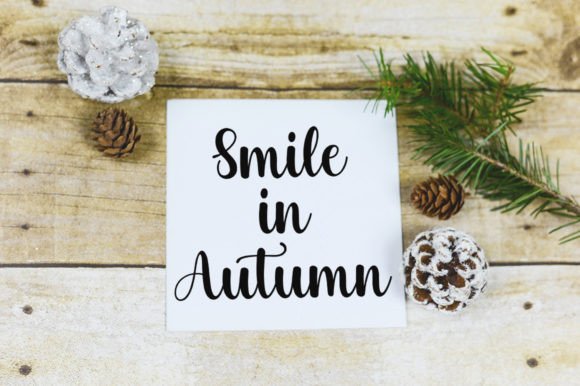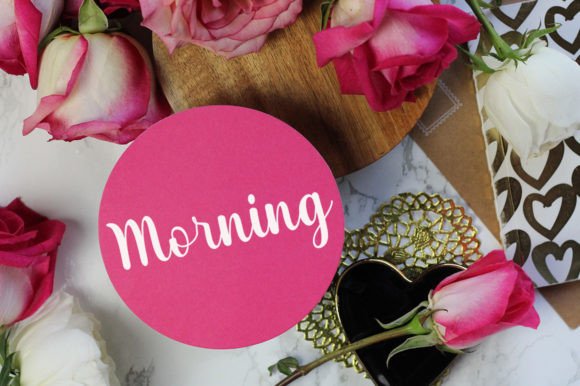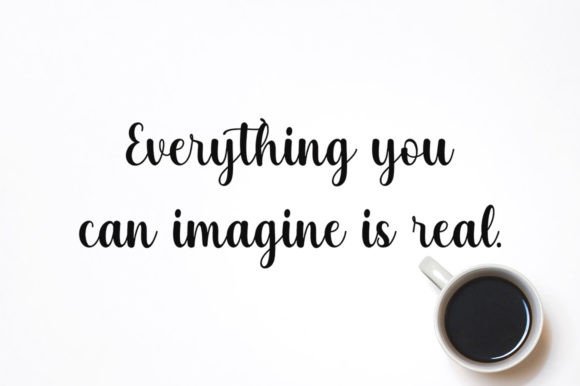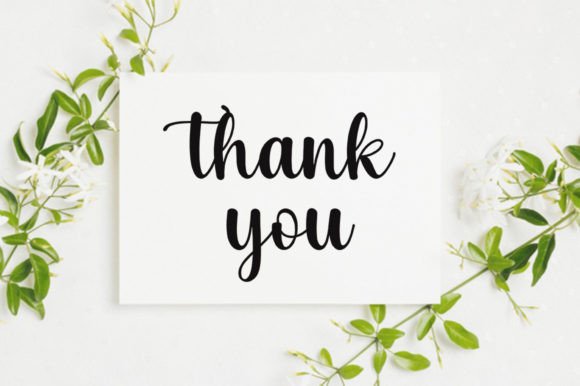
Rachel Font
About Rachel Font
**Rachel: A Romantic and Sweet Calligraphy Typeface**
**Rachel** is a romantic and sweet calligraphy typeface that brings a touch of elegance and luxury to your design projects. With characters that dance gracefully along the baseline, this font is designed to add a sense of romance and sophistication to any creative endeavor you wish to undertake.
**Rachel** stands out with its beautifully crafted calligraphic letterforms. Each character exudes a sense of beauty and charm, making it an ideal choice for projects that require a romantic and sweet look.
This font’s ability to evoke romance and sweetness makes it suitable for a wide range of applications. Whether you’re working on wedding invitations, branding, packaging, stationery, or any other creative project, **Rachel** elevates the overall aesthetic with its luxurious and charming style.
In the world of wedding invitations and stationery, this font enhances the romantic and timeless aspects of your designs, setting the stage for unforgettable celebrations.
For branding and packaging, **Rachel** ensures your products and visual identity convey a sense of exclusivity and sweetness, leaving a lasting impression on your audience.
In conclusion, **Rachel** is more than just a font; it’s a design asset that brings romance and sweetness to your creative projects. Whether you’re designing for special occasions, branding, or various other contexts, choose **Rachel** to infuse your work with its unique and charming charm. Embrace its graceful beauty, and let your creativity flourish with sophistication.